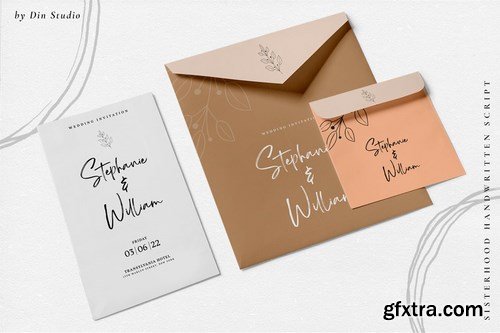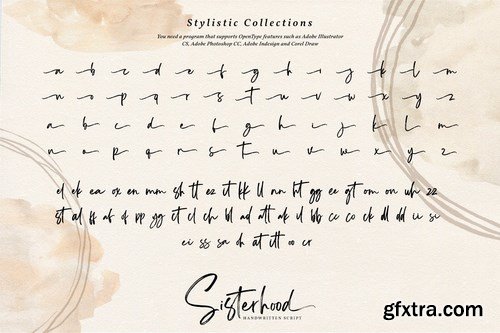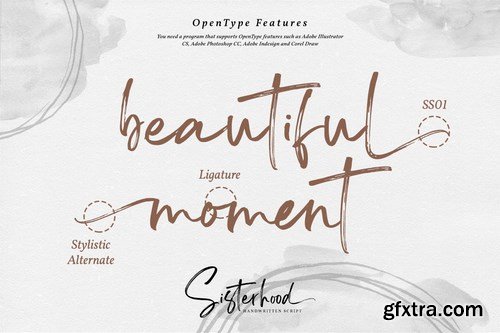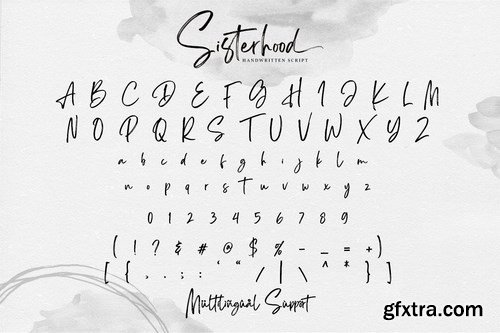
Sisterhood is a beautiful brush signature font. Made for any professional project branding. Every letter has a unique and beautiful touch. Made from our talented font designer.